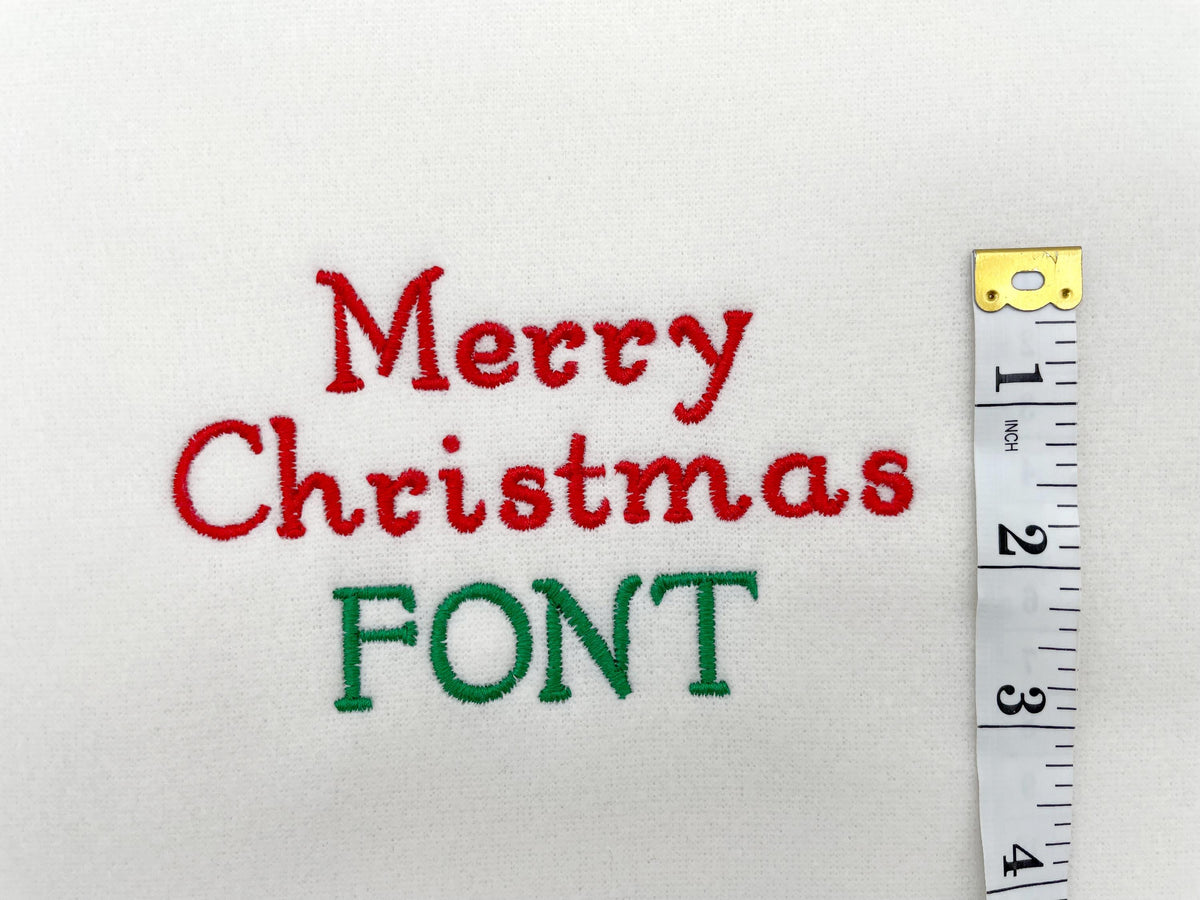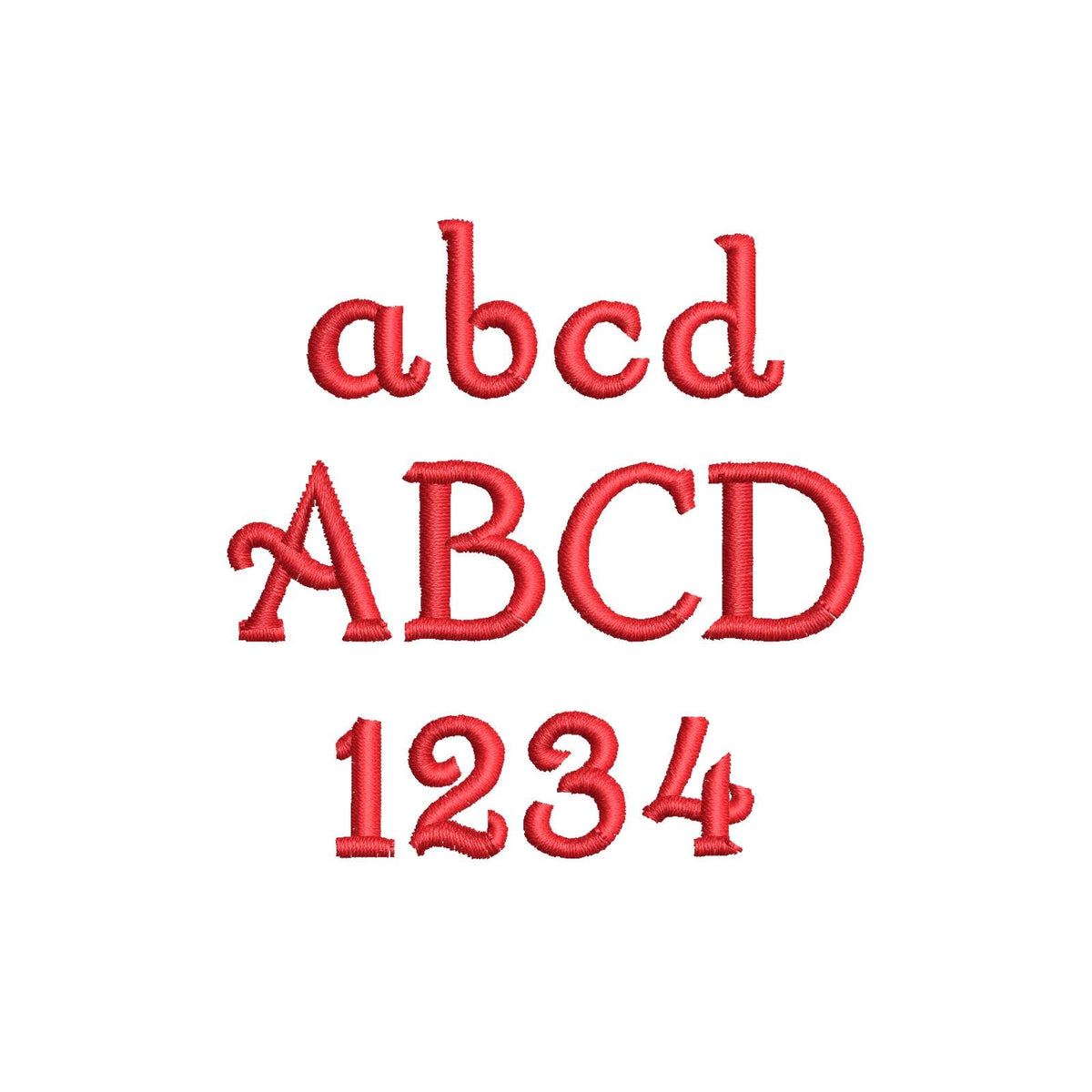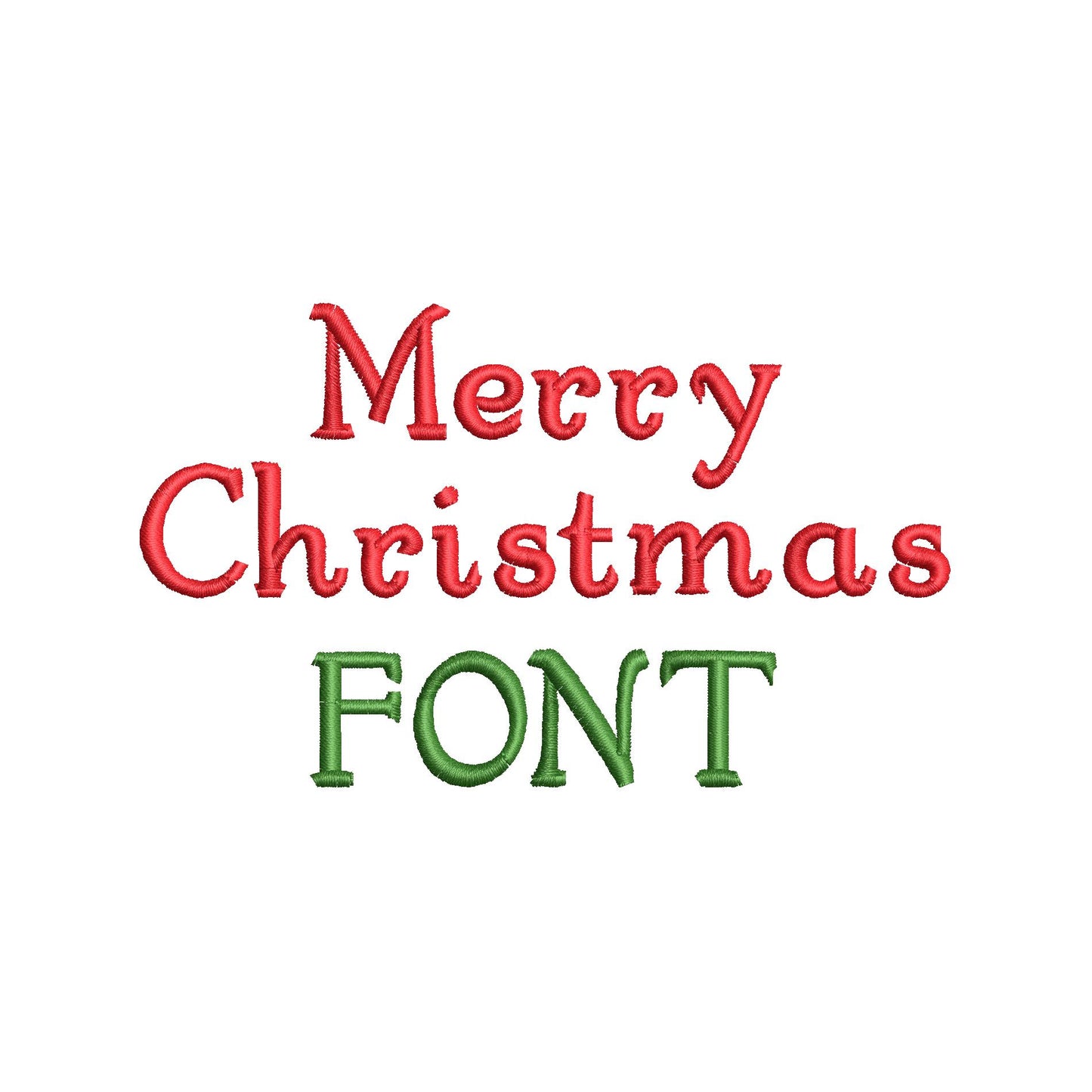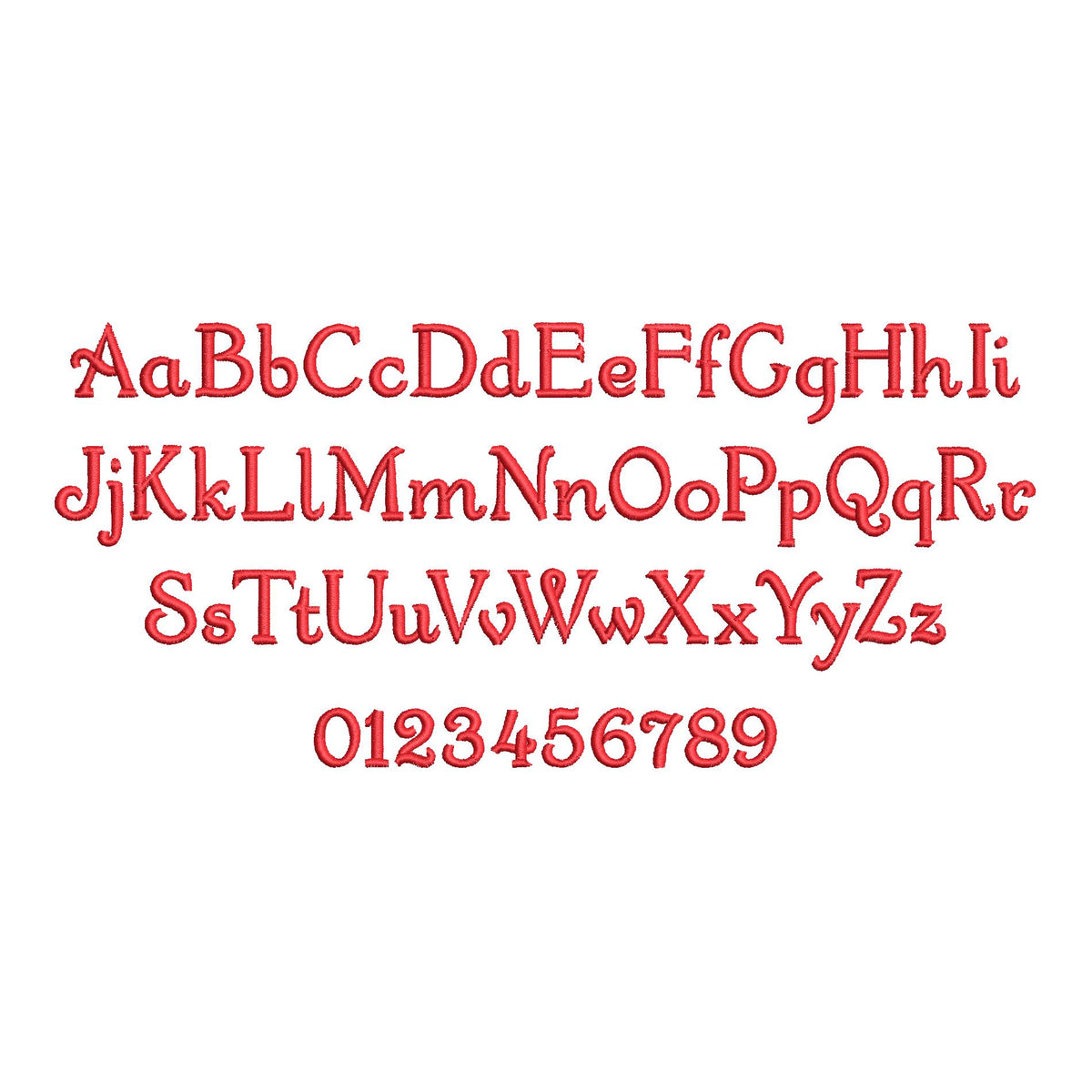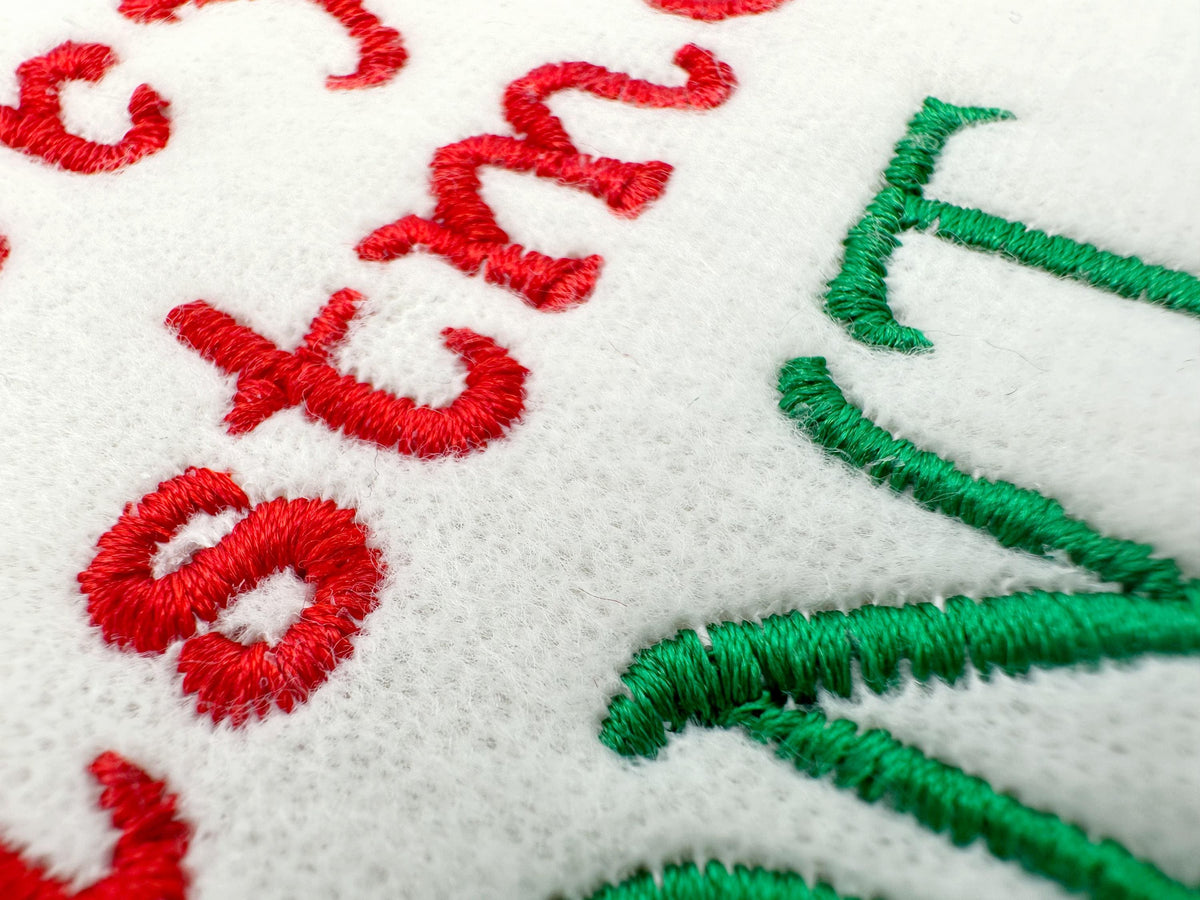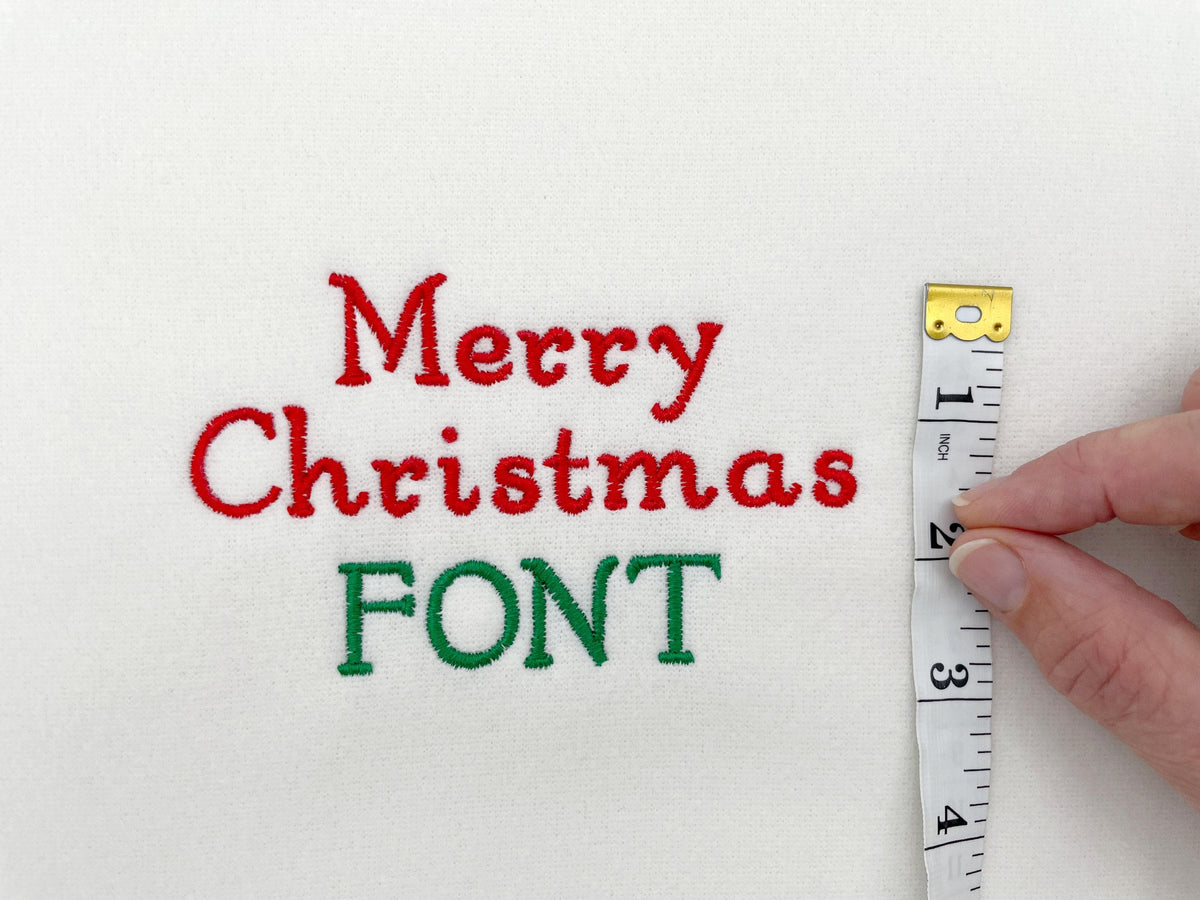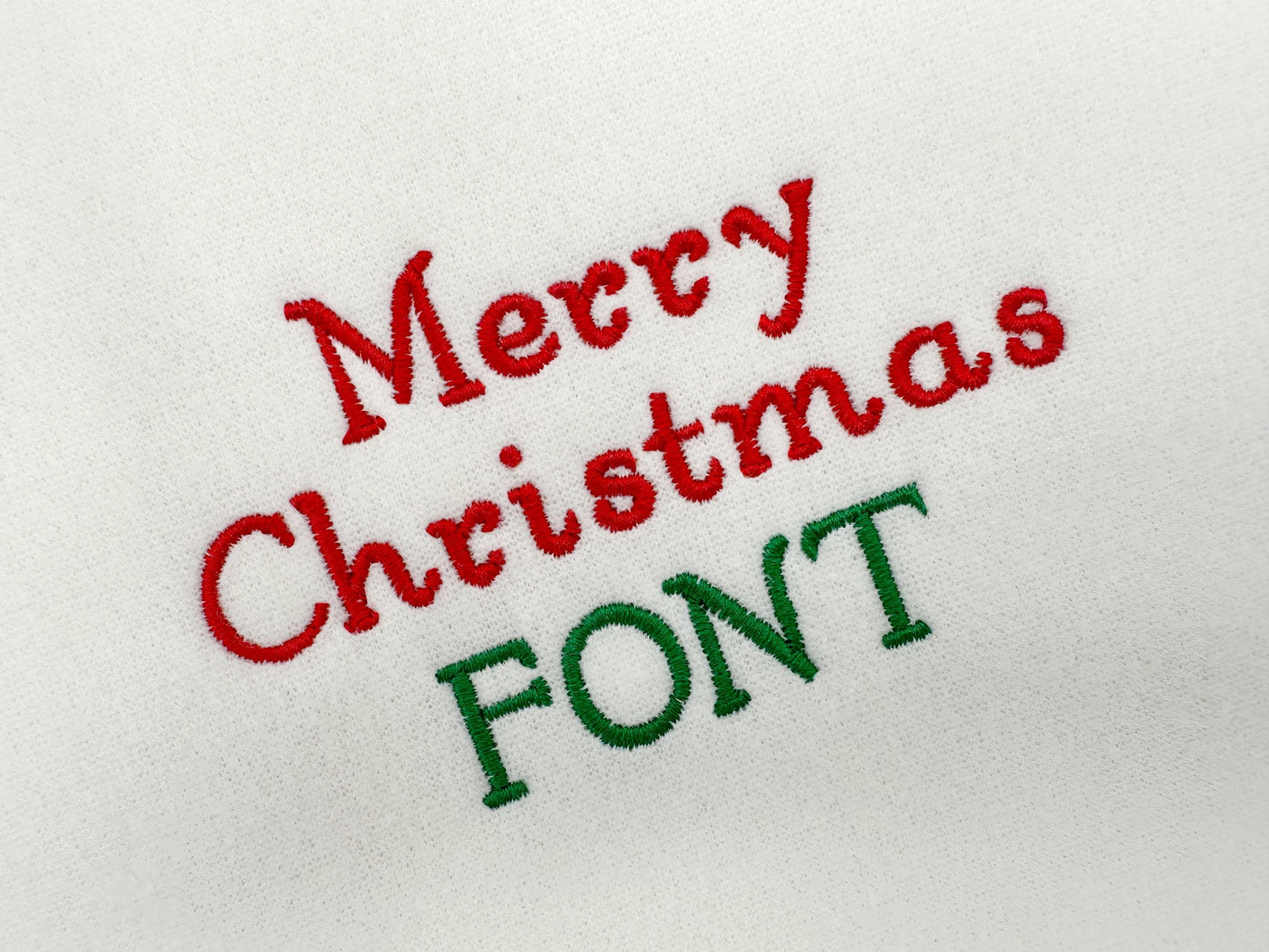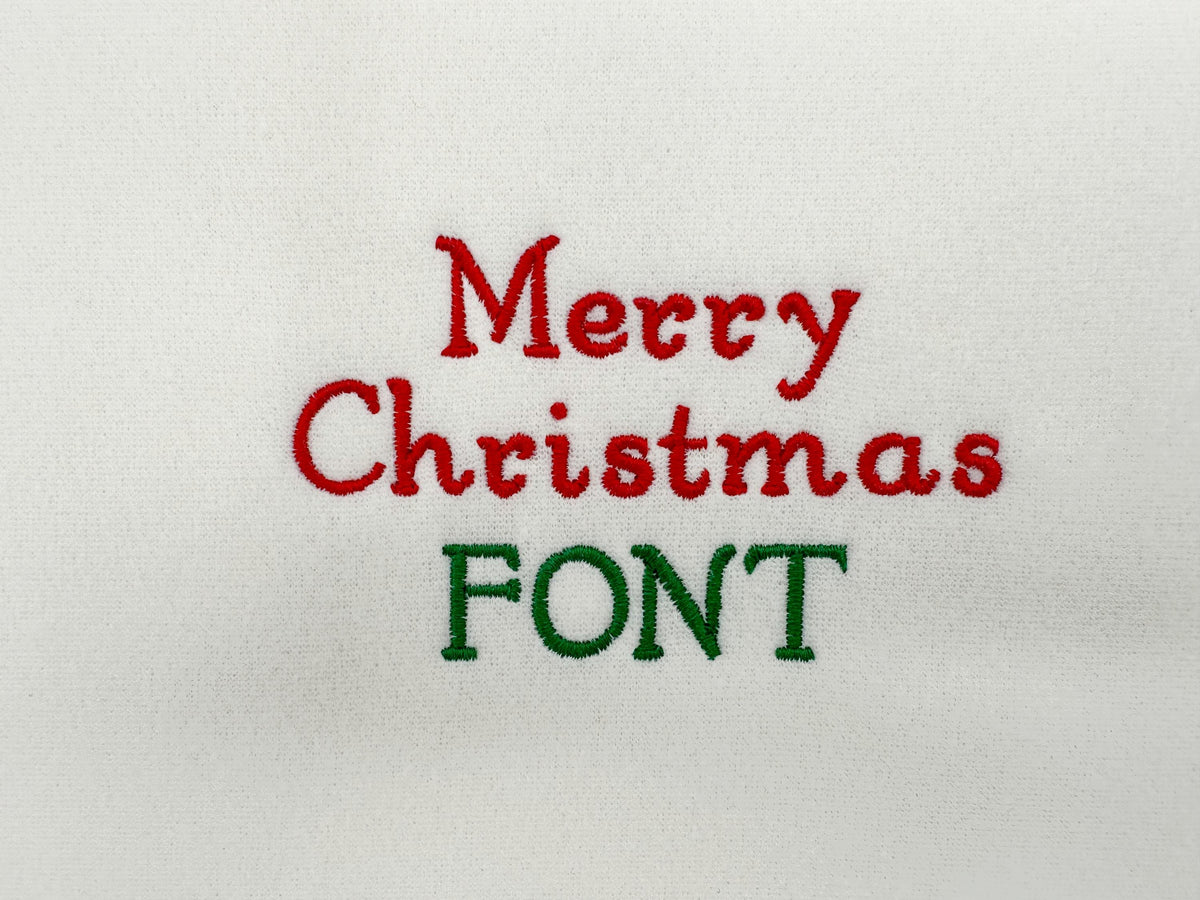
Curl Font for Christmas Stocking
The letters come in six mini sizes: 0.6, 0.8, 1.1, 1.5, 1.8 and 2.2 inches. Smooth satin stitch letters with little curls. Includes uppercase and lowercase letters A to Z and numbers 0 to 9.
- Curly satin stitch script font
- Uppercase and lowercase letters, numbers 0 to 9
- 6 sizes, 0.6 to 2.2 in